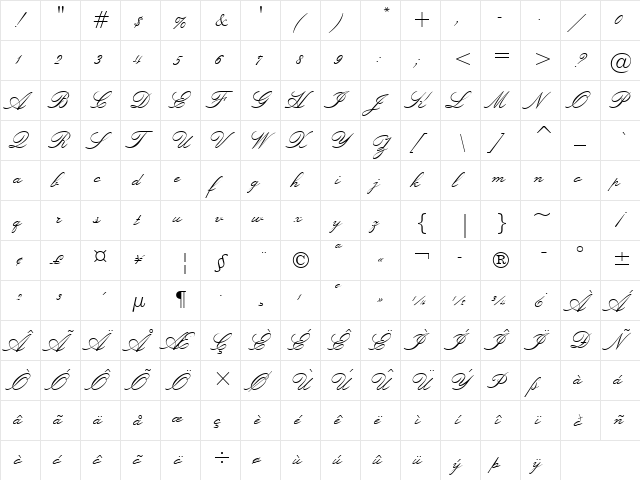
Lucia Regular Font Preview
Lucia Regular
Design Context for Lucia Typeface
Lucia is a composed and adaptable typeface that performs quietly and consistently across a wide range of design contexts.